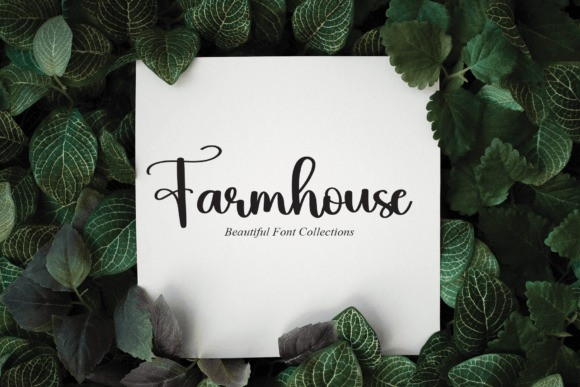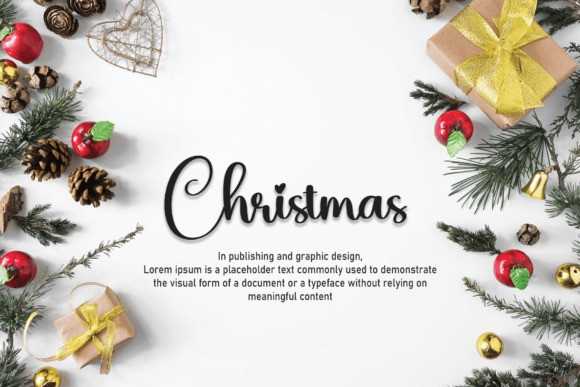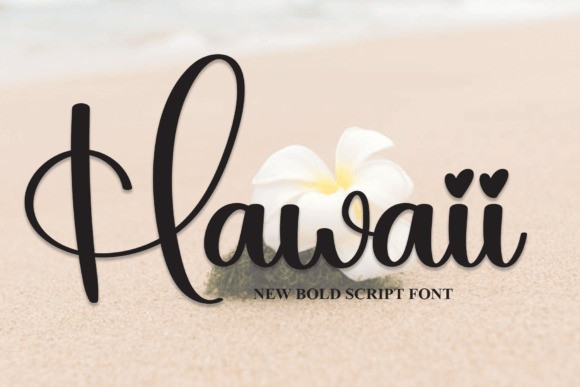
Hawaii Script Font
Hawaii Script Font is an elegant and stylish handwritten font that is perfect for wall displays, wedding invitations, social media post logos, advertisements, product packaging, product designs, labels, photography, watermarks, invitations, stationery, and any project that requires a handwritten taste.